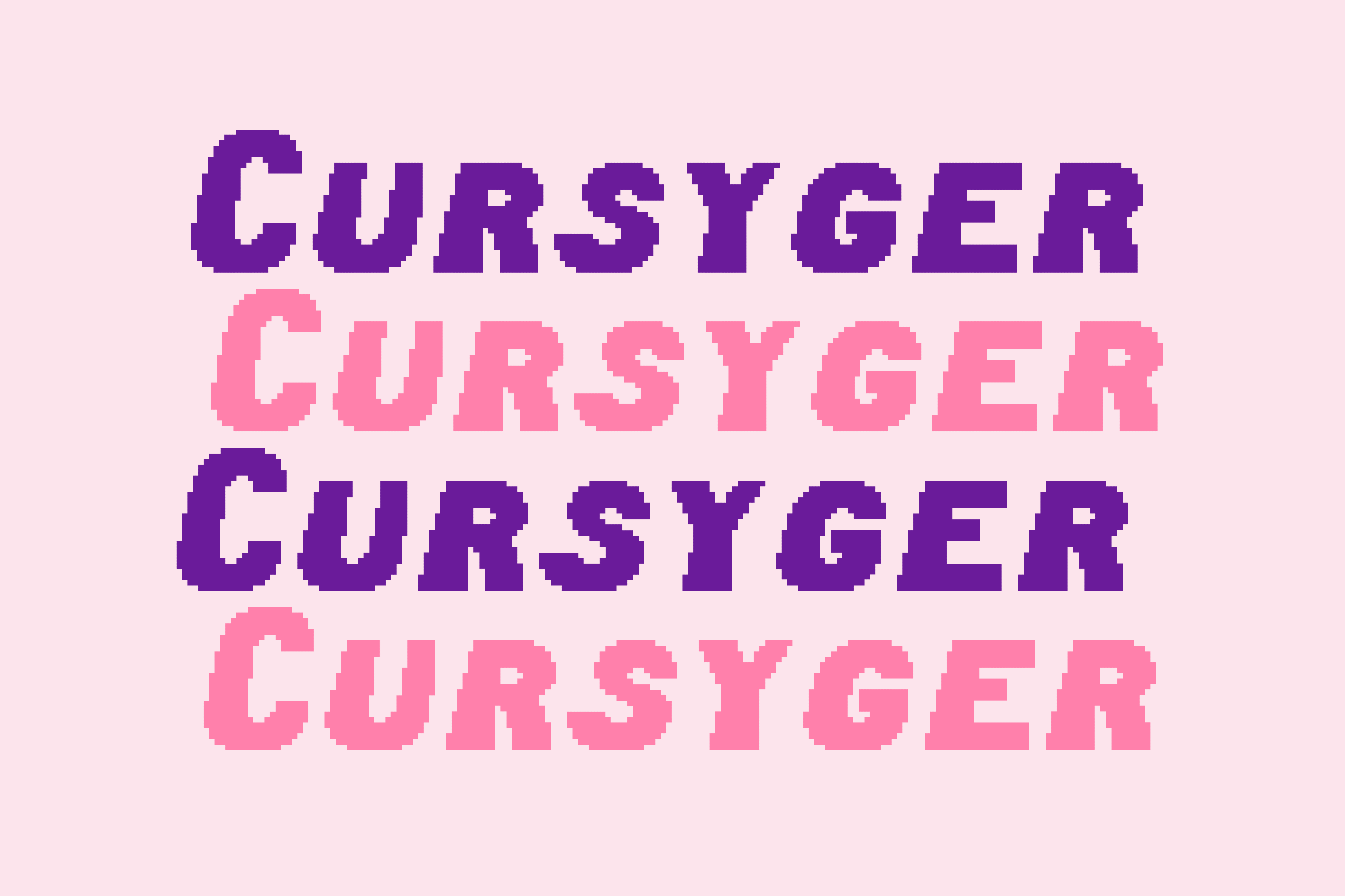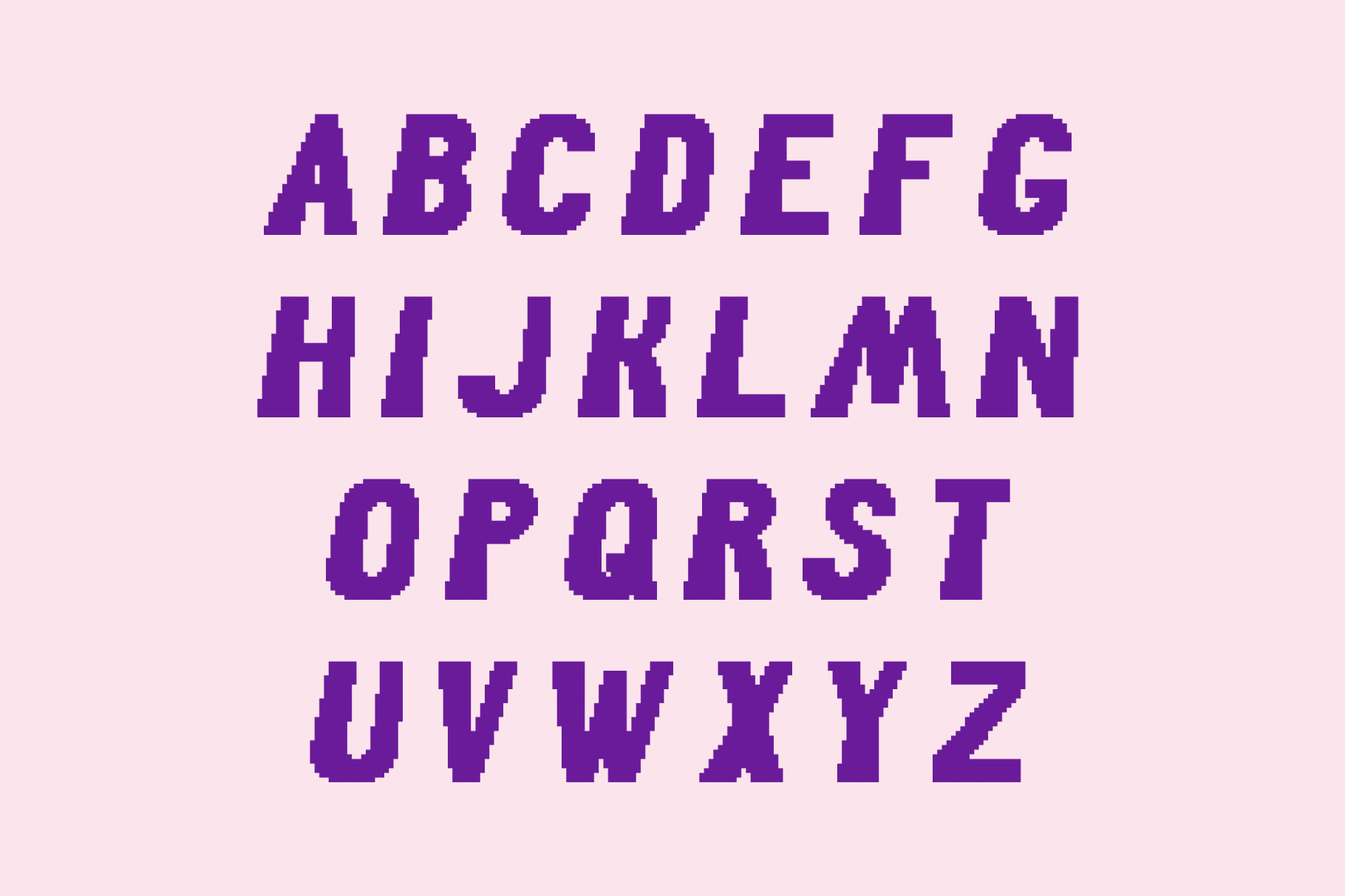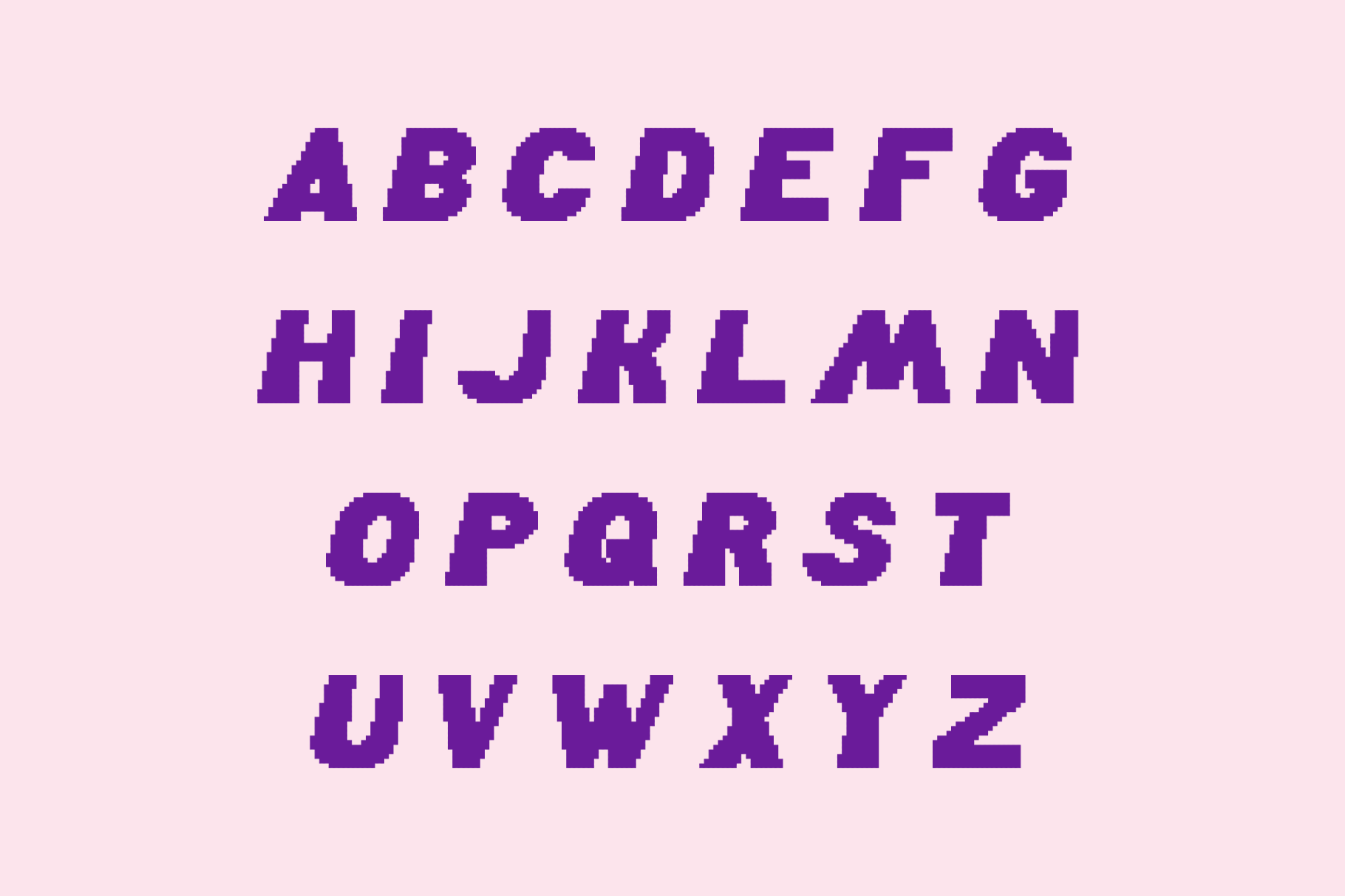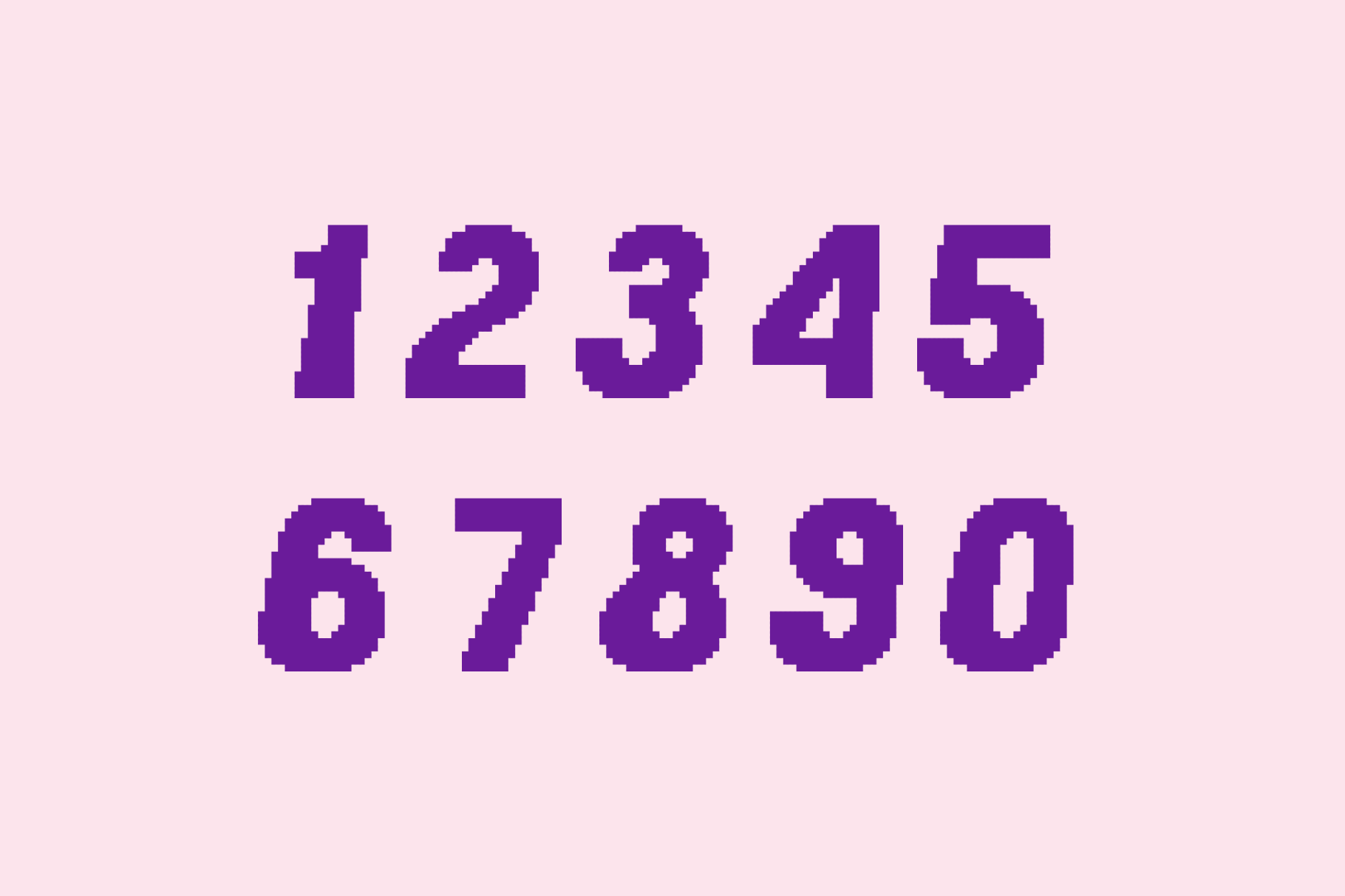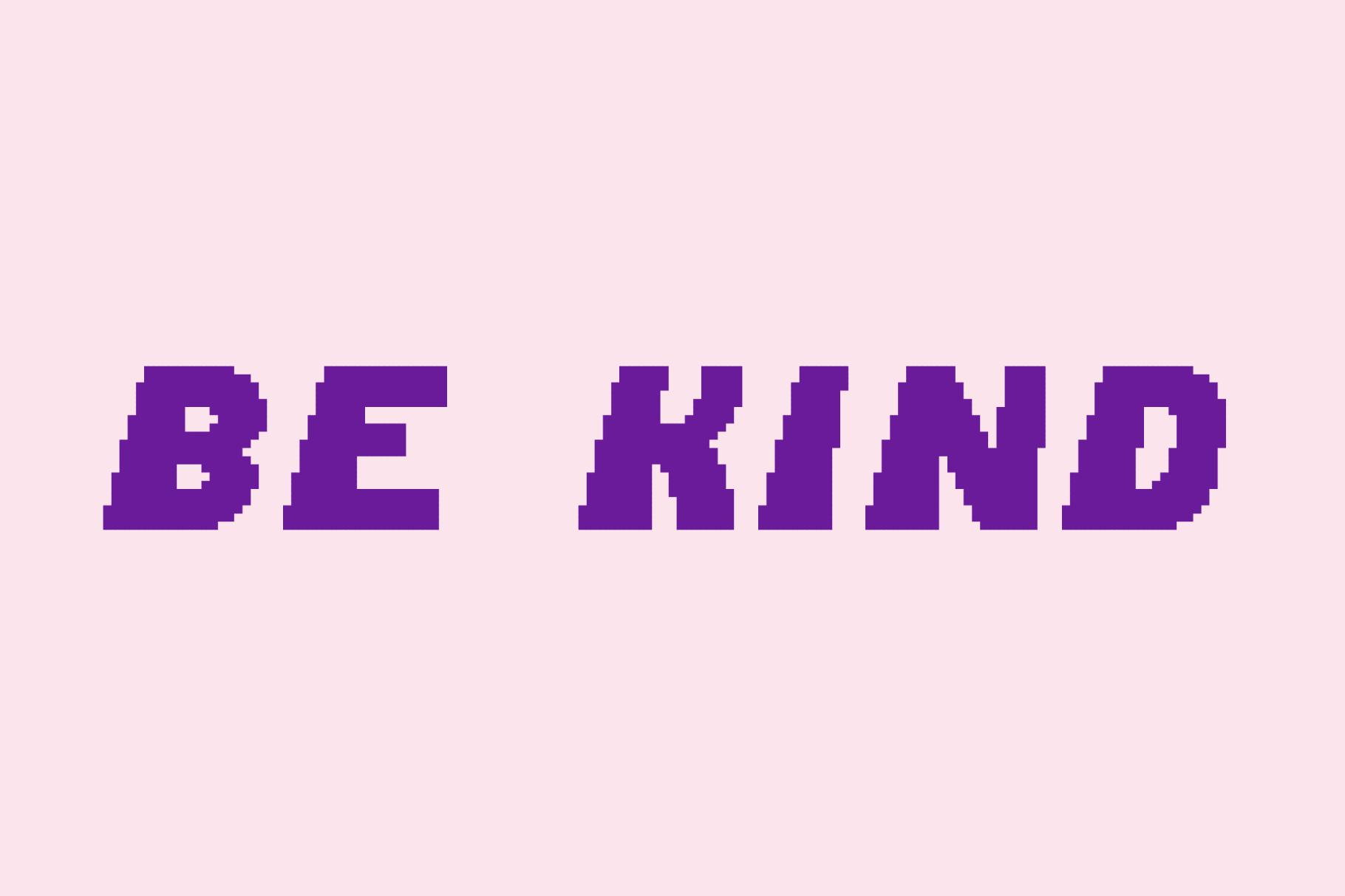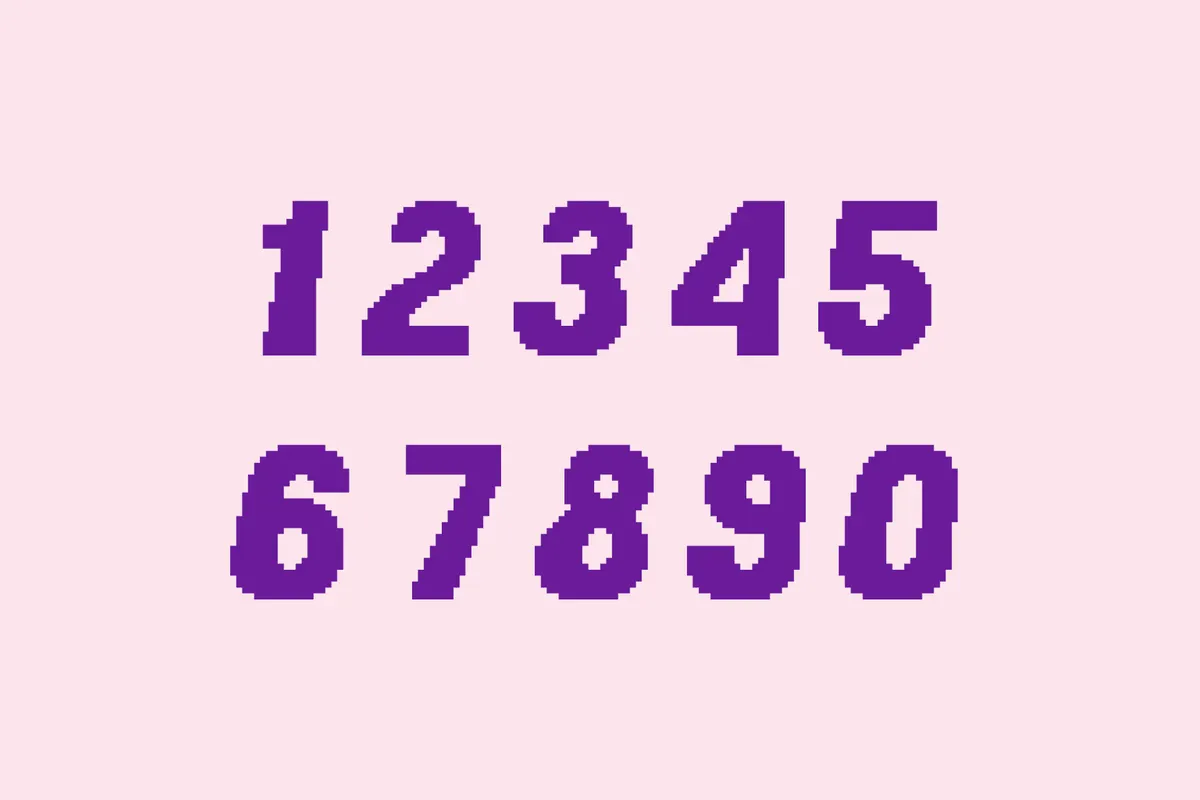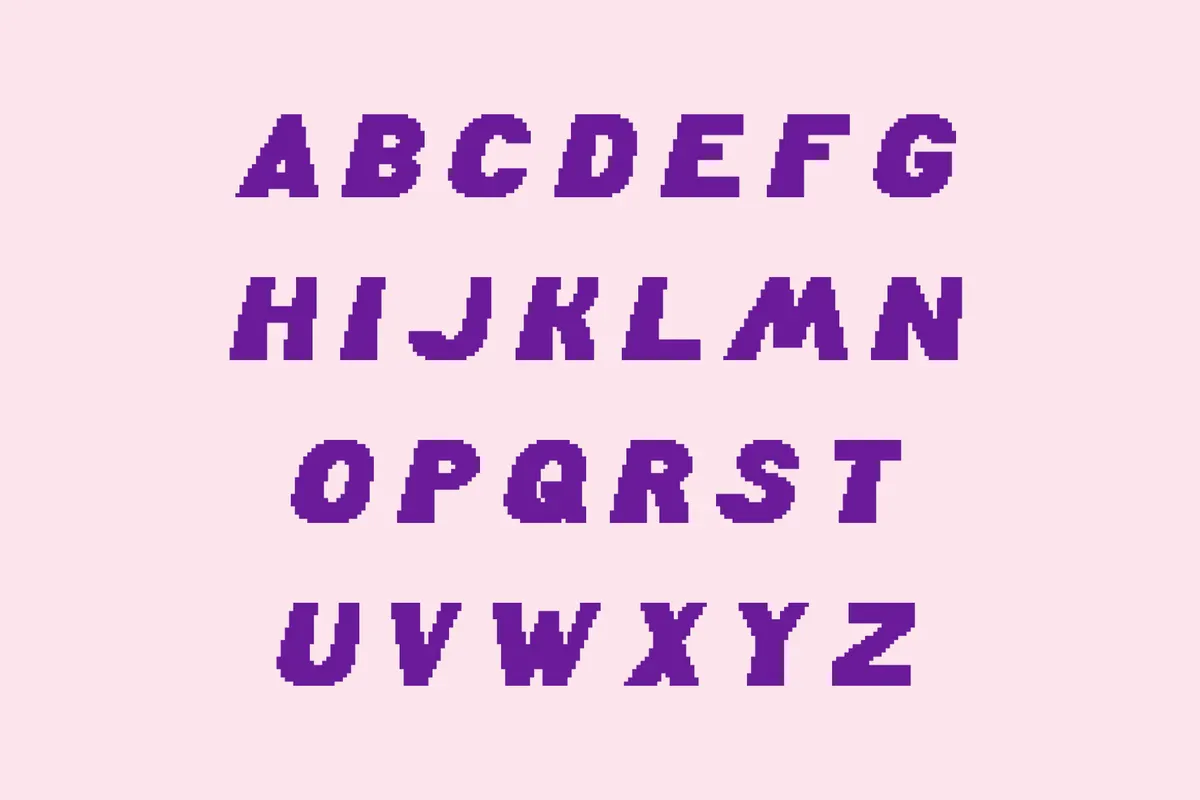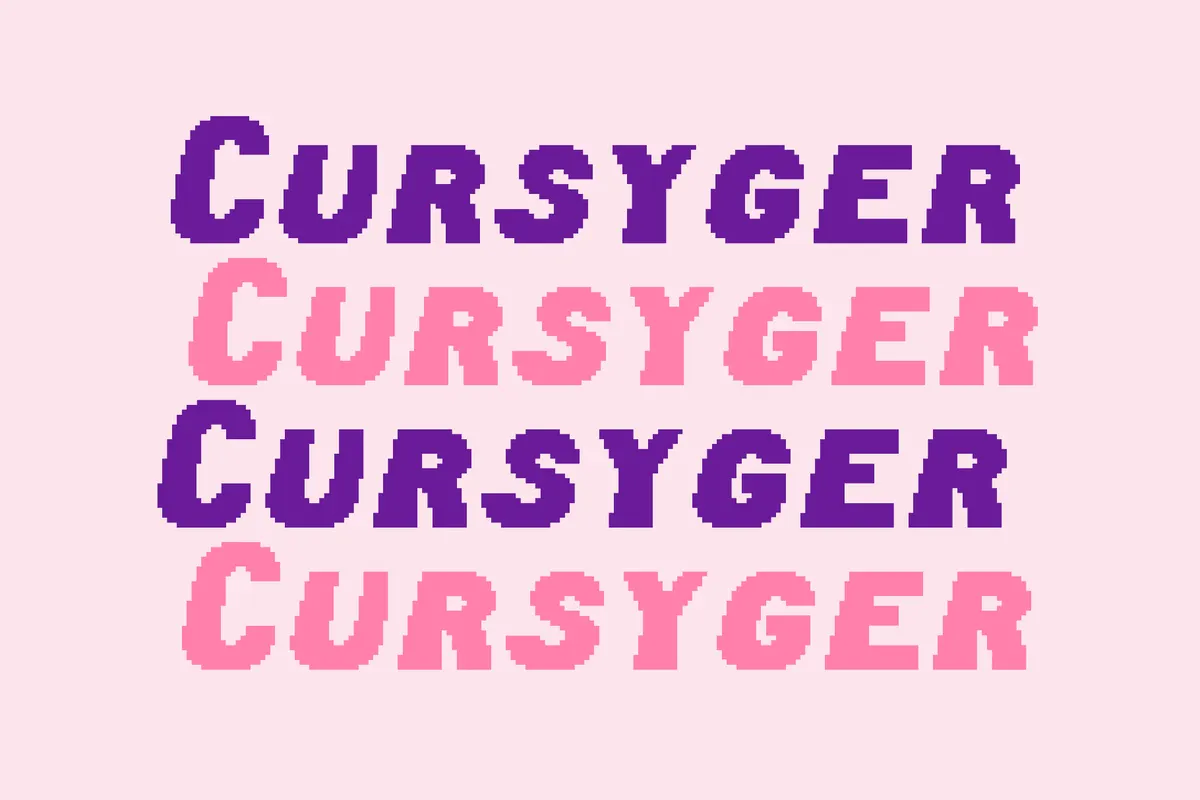
Cursyger - Pixel Gaming Font
cursyger
Cursyger is a jagged pixel type with the raw charm of early DOS screens, ASCII art, and homemade game graphics from the late 1980s, turning blocky constraints into something witty and strangely theatrical. This funny font works well for retro game titles, zine covers, poster headlines, sticker designs, coding-themed merch, social graphics and experimental branding.